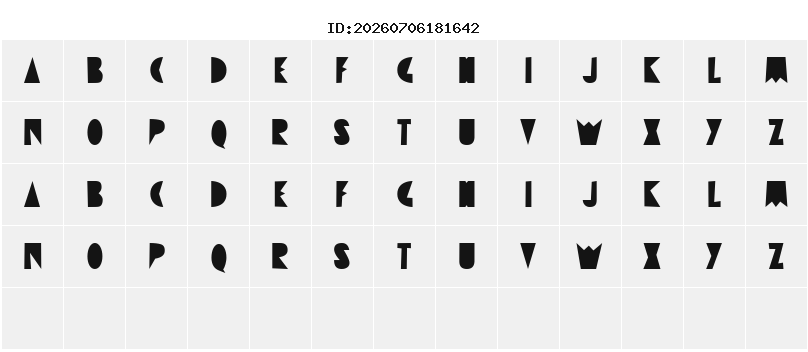
Destrukt Preview
About Destrukt.ttf
Destrukt.ttf is a modern, elegant sans-serif font designed for ultimate readability and visual harmony. Perfect for branding, headlines, web design, and print materials.